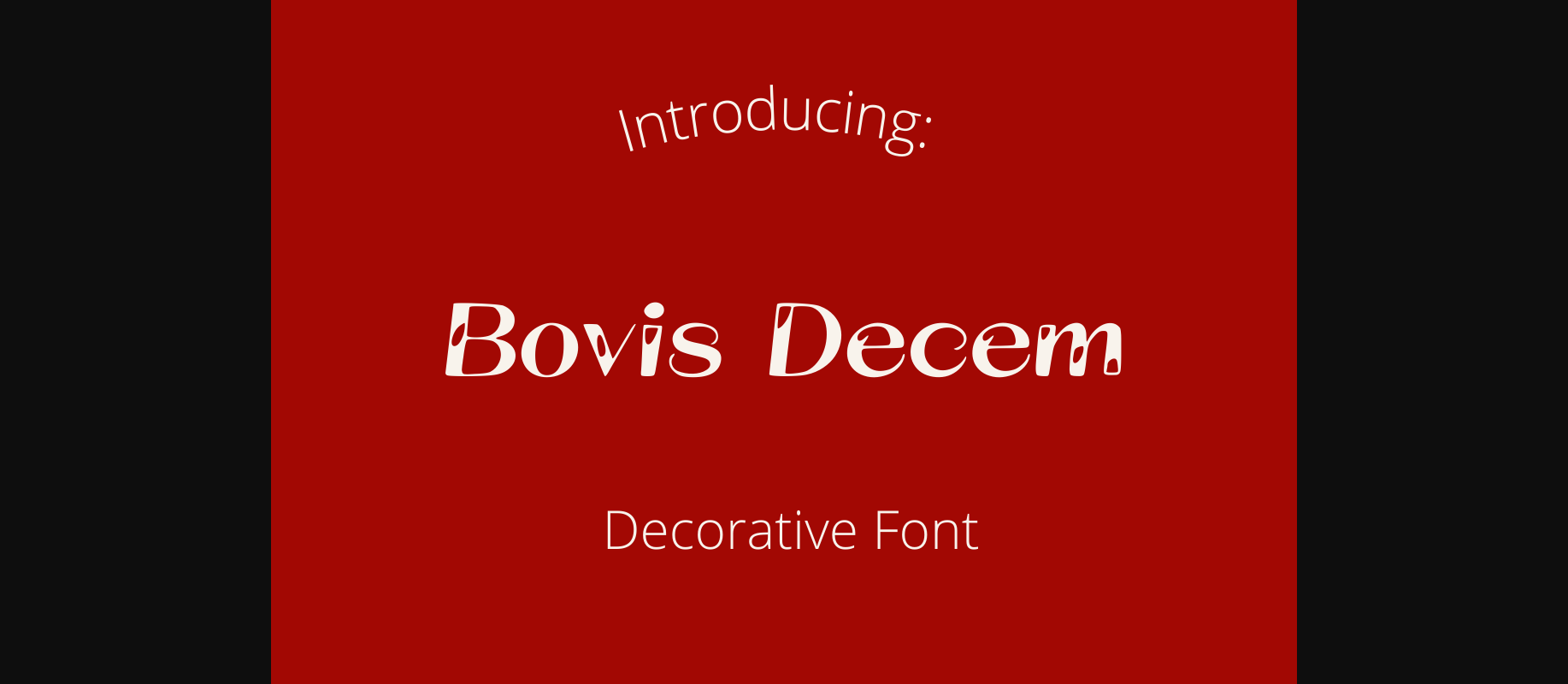
HomeDecorative FontsBovis Decem Font Decorative Fonts Bovis Decem Font FacebookXPinterestWhatsApp 1 of 1 ... About Bovis Decem Font With its hand-drawn and whimsical style, this font is perfect for adding a playful and imaginative touch to children’s books, packaging, and any design that calls for a light-hearted and artistic vibe. DOWNLOAD NOW People also explored Gorgiel Font Heartbeat Family Font Maradona Signature Font Firecracker Font Elephant Splinter Font Shuntip Jan Font Advertis Font ZP Altisimo Font 506 0 TagsBovis Decem Font Previous articleLasciva Sedecim FontNext articlePetrusum Unu Font LEAVE A REPLY Cancel reply Comment: Please enter your comment! Name:* Please enter your name here Email:* You have entered an incorrect email address! Please enter your email address here Website: Save my name, email, and website in this browser for the next time I comment. Personal Use Free Pridaem Cooper Personal Use Free Read more about this font Gupis Personal Use Free Read more about this font Cataclysmo Personal Use Free Read more about this font Ginóra Personal Use Free Read more about this font BLOG Free vs Paid Fonts: Why Investing in Premium Fonts Is Worth It Free vs Paid Fonts: Why Premium Fonts Are Worth It in 2025 The debate of free vs paid fonts continues in the design world. While... The 10 Best Handwriting Fonts to Add Personality to Your Designs How to Cut Any Font on Cricut: Convert a Font to SVG (Free) Where to Buy American Fonts Online in 2024